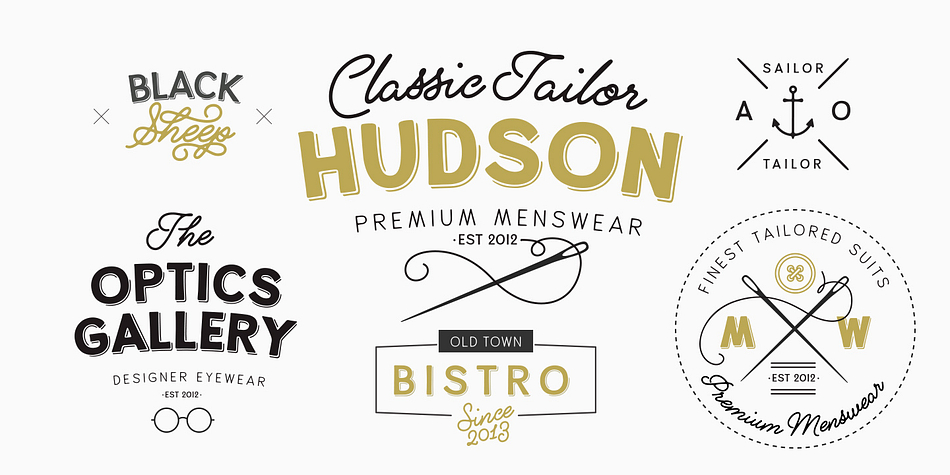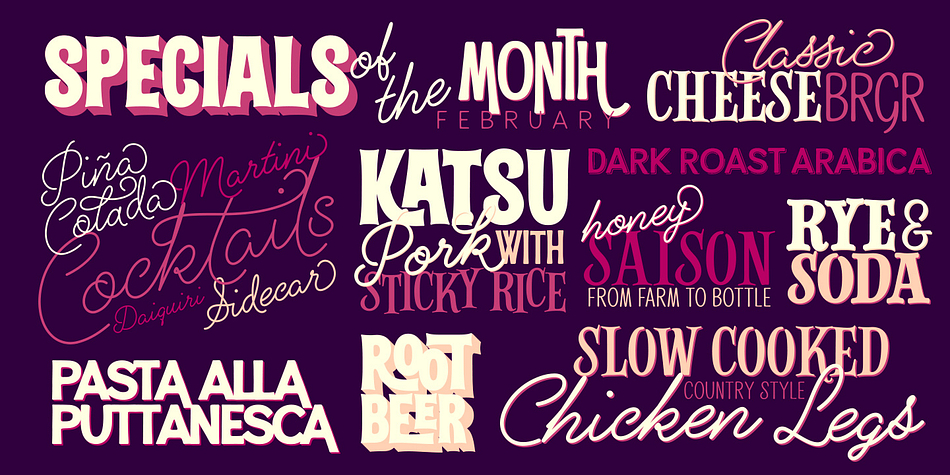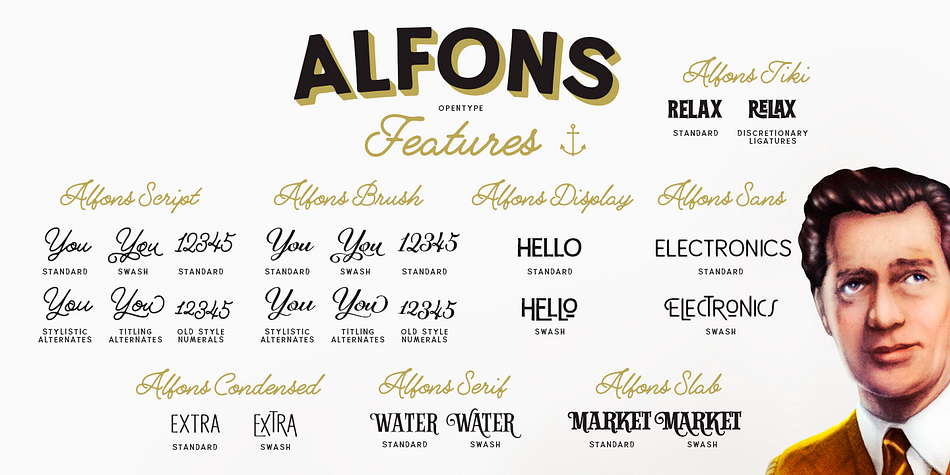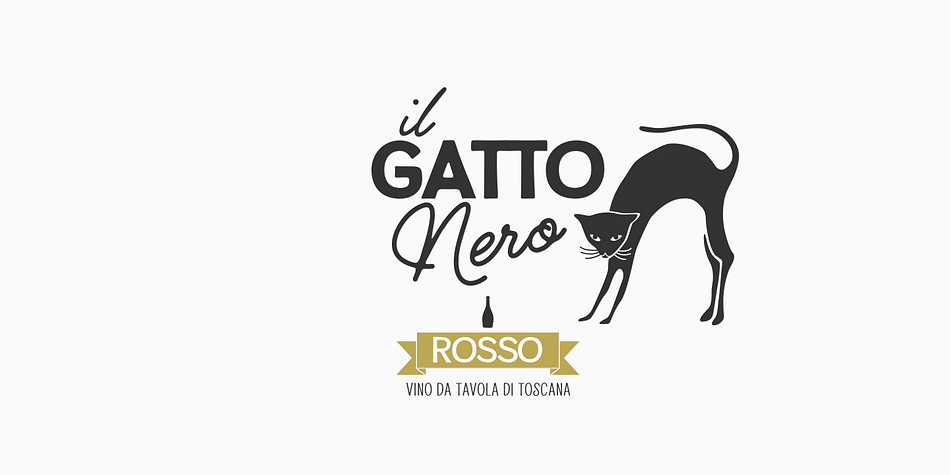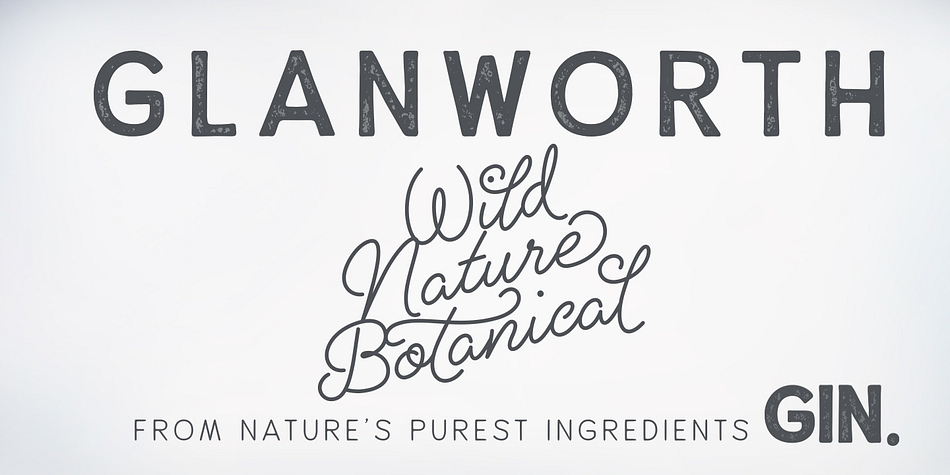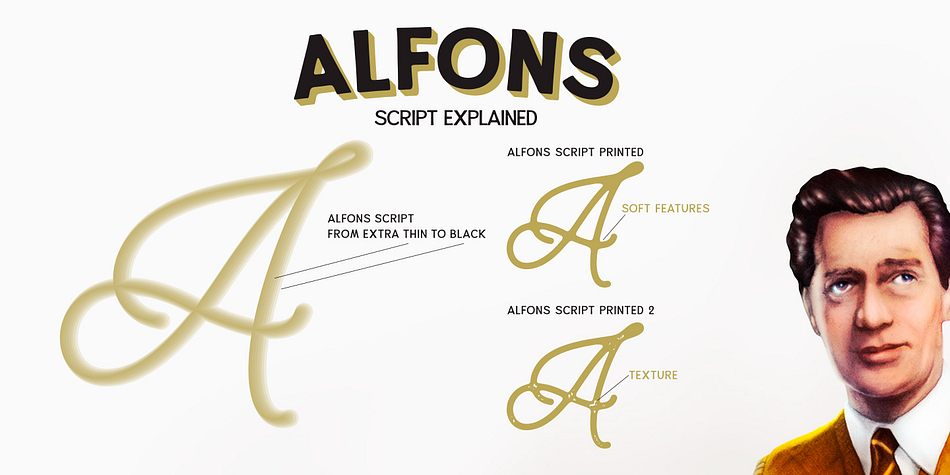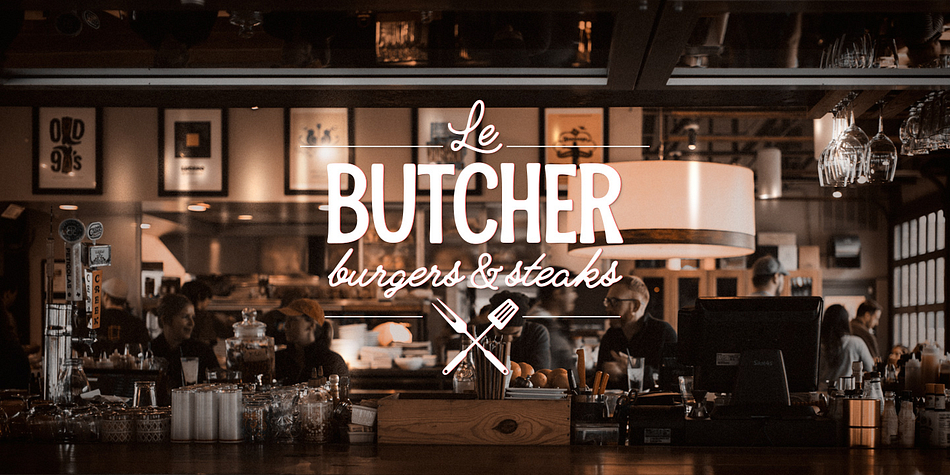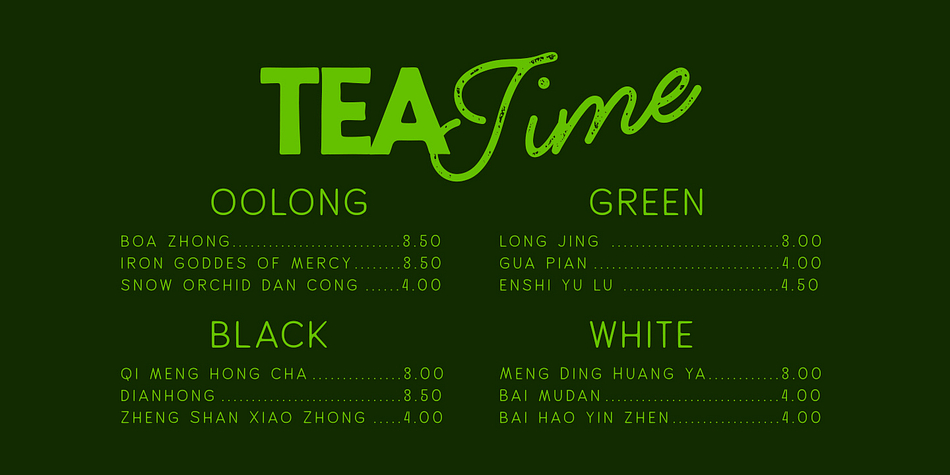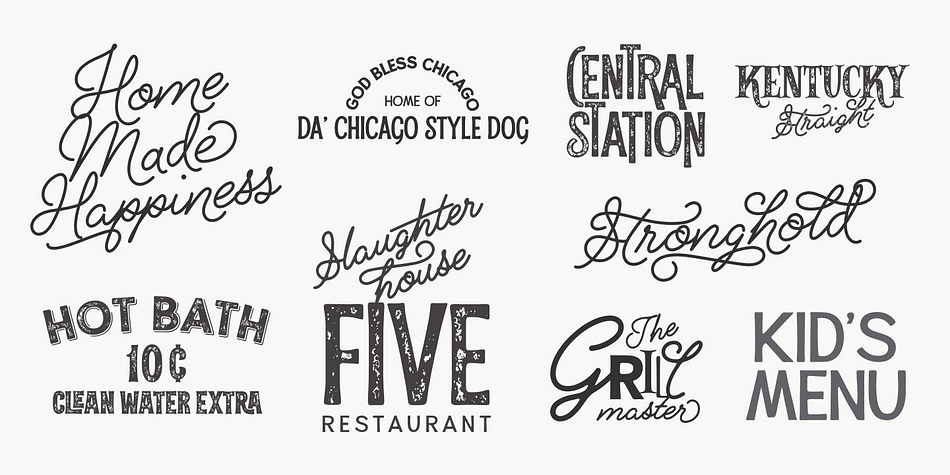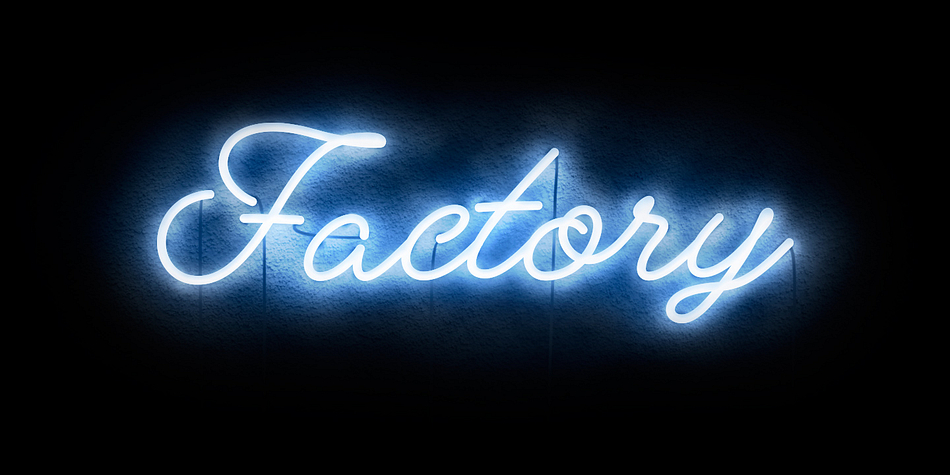
Designed by Emil Karl Bertell, Alfons is a dingbat, script and hand display font family. This typeface has fifty styles and was published by Fenotype.
Alfons is a handy collection of 38 display fonts with a pack of Ornaments and Extras on top of that. Alfons is great for any kind of display use from online to packaging to posters or identities.
Alfons is divided into eight subfamilies that play great together. Alfons’ core family is a monoline script that has eight weights from extra thin to black and on top of that two printed versions that have softer, a bit blurred features.
Alfons Script is equipped with Standard Ligatures which makes the flow more natural. For more swirling swashes and bouncy flow try Swash, Stylistic or Titling Alternates in any OpenType savvy program or manually select from even more alternate characters from Glyph Palette. Alfons Display, Sans, Condensed, Serif and Slab are equipped with Swash alternates and Alfons Tiki has interlocking ligatures feature that you can access from Discretionary Ligatures.
Alfons Extras is a pack of pictograms and icons and some catchwords. Alfons Ornaments is designed to work with Script.